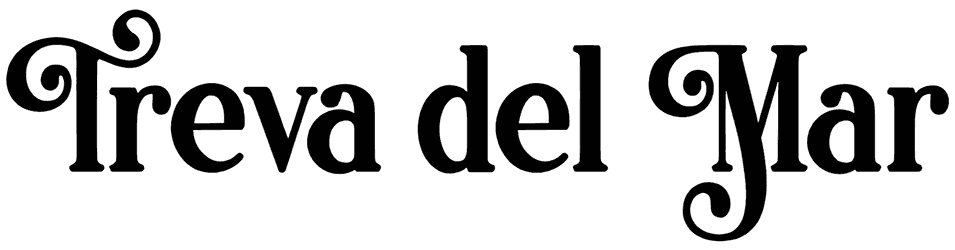
Treva del Mar Font
Nothing better than a retro font like Treva del Mar, which comes in two different styles, can save your time and energy as a professional graphic designer. It gives your audience a classic and vintage feeling. The edges of this font are elongated and rounded, so it can make a stronger impact on posters, logos, business cards, invitations, and gift cards.